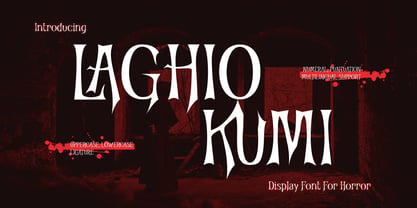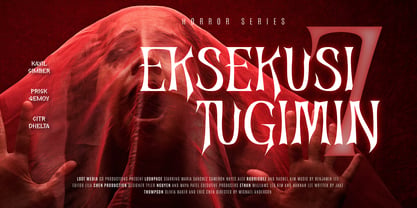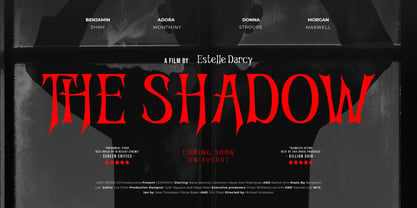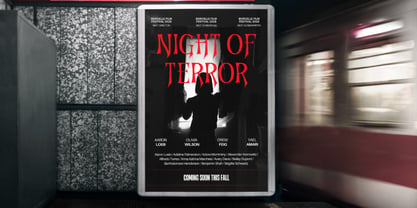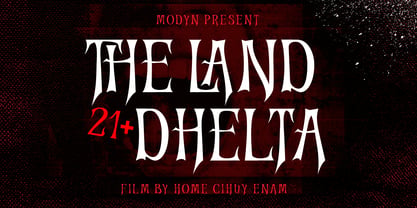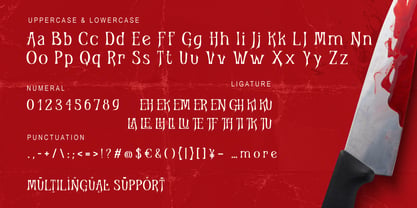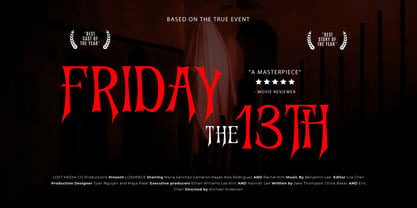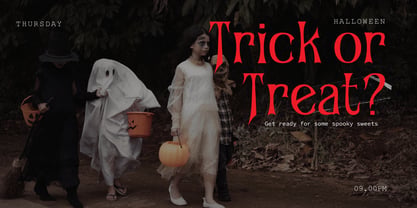
Laghio Kumi
by Twinletter
The Laghio Kumi Font Family was designed by Rozikan and published by Twinletter. Laghio Kumi contains 1 styles. More about this family
Laghio Kumi is a terrifying display horror font designed to bring fear and intensity to your creative projects. With its sharp, jagged edges and eerie letterforms, this font captures the essence of horror, making it perfect for projects that demand a dark, sinister atmosphere.
Ideal for movie titles, posters, Halloween-themed designs, book covers, gaming graphics, and spooky branding, Laghio Kumi enhances any horror concept with its menacing and haunting aesthetic. Whether you’re working on a thriller, a haunted house attraction, or a chilling marketing campaign, this font will leave an unforgettable impact on your audience.
Designers: Rozikan Rozikan
Foundry: Twinletter